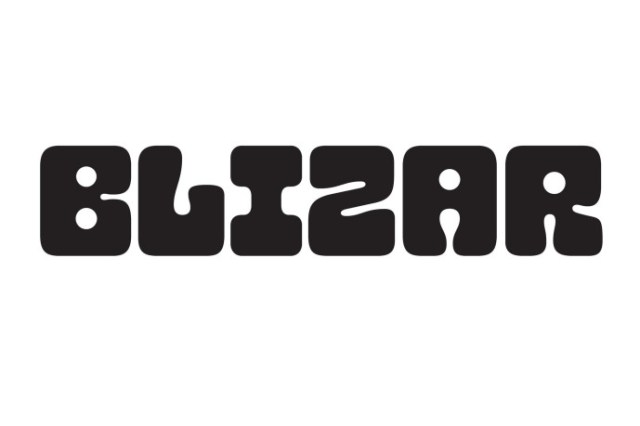
Blizar Display Font
Designer: typobureau_studio
TBS Blizar Display Font is sans serif base an experimental display typeface with a bit psychedelic feel, heavy stroke and soft edges of every glyphs, makes this font looks edgy. Use BLIZAR as a display font so you can use this font to elevate your project to the next level. suit for headline, Large Size, Titles and more. hope you are enjoy with this fun font. cheers!